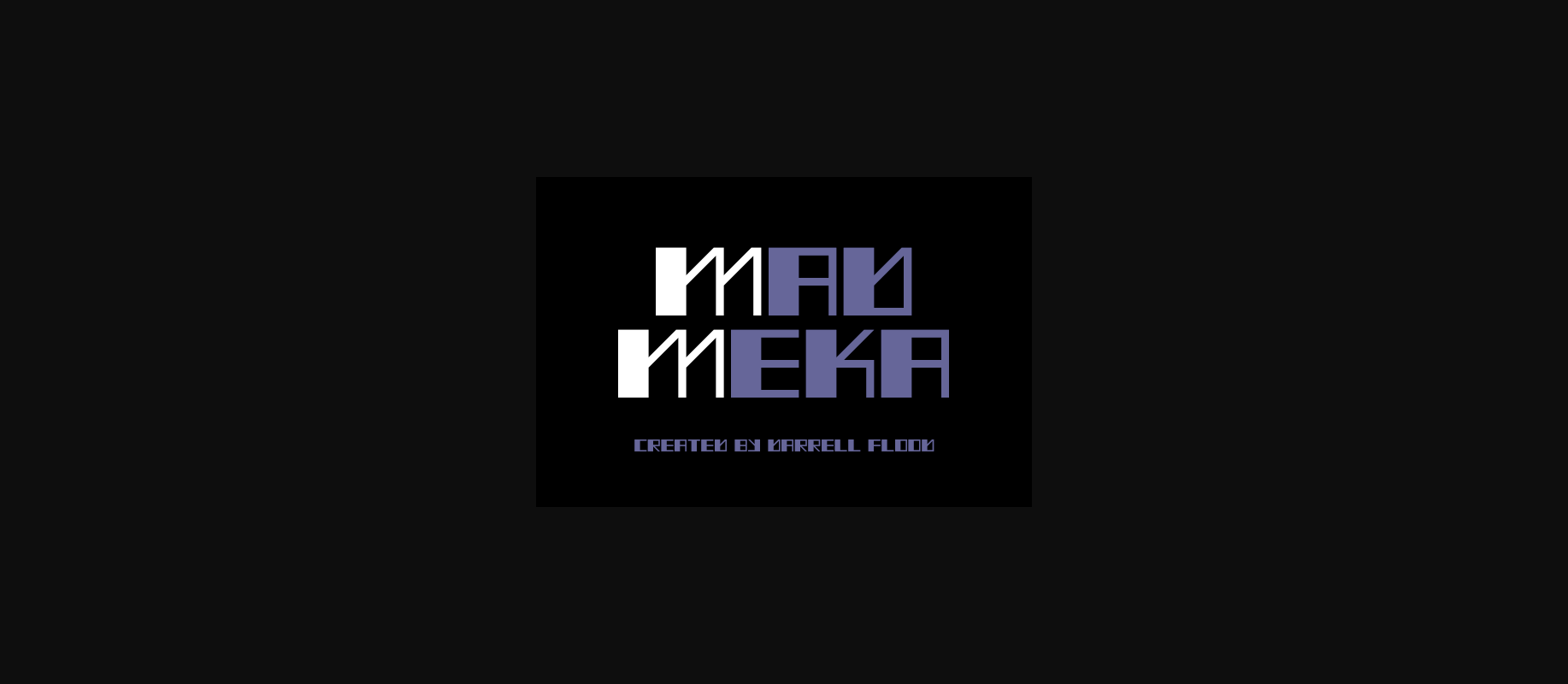
HomeDecorative FontsMad Meka Font Decorative Fonts Mad Meka Font FacebookTwitterPinterestWhatsApp 1 of 1 ... About Mad Meka Font An angular, futuristic font, suitable for sci-fi settings. Font created by Darrell Flood. DOWNLOAD NOW 127 0 People also explored Kenzie Madago Font United Font Antipasto Font Mens Navy Bella Canvas 3001 Shirt Mockup Primrose Font Cute Spring Font Creative Handmade Font Motorcity Texas Renger Font Warmer Home Font Dream Succes Font TagsMad Meka Font Previous articleLeafyction FontNext articleSimpla Font LEAVE A REPLY Cancel reply Comment: Please enter your comment! Name:* Please enter your name here Email:* You have entered an incorrect email address! Please enter your email address here Website: Save my name, email, and website in this browser for the next time I comment. Unlock Endless Creativity with the FREE September Clipart Huge Bundle (Valued at $700!) Personal Use Free Hunters Personal Use Free Read more Fadhista Personal Use Free Read more Klotee Personal Use Free Read more The 10 Best Handwriting Fonts to Add Personality to Your Designs Blog Read more BLOG Transform Your Website: Elevate Your Typography with 7 Best Web Font Generators Are you ready to transform your website's typography from ordinary to extraordinary? Great! Today, we're diving into the world of web font generators, which... Where to Buy American Fonts Online in 2024 The 10 Best Handwriting Fonts to Add Personality to Your Designs To increase your work productivity, choose the most readable fonts.